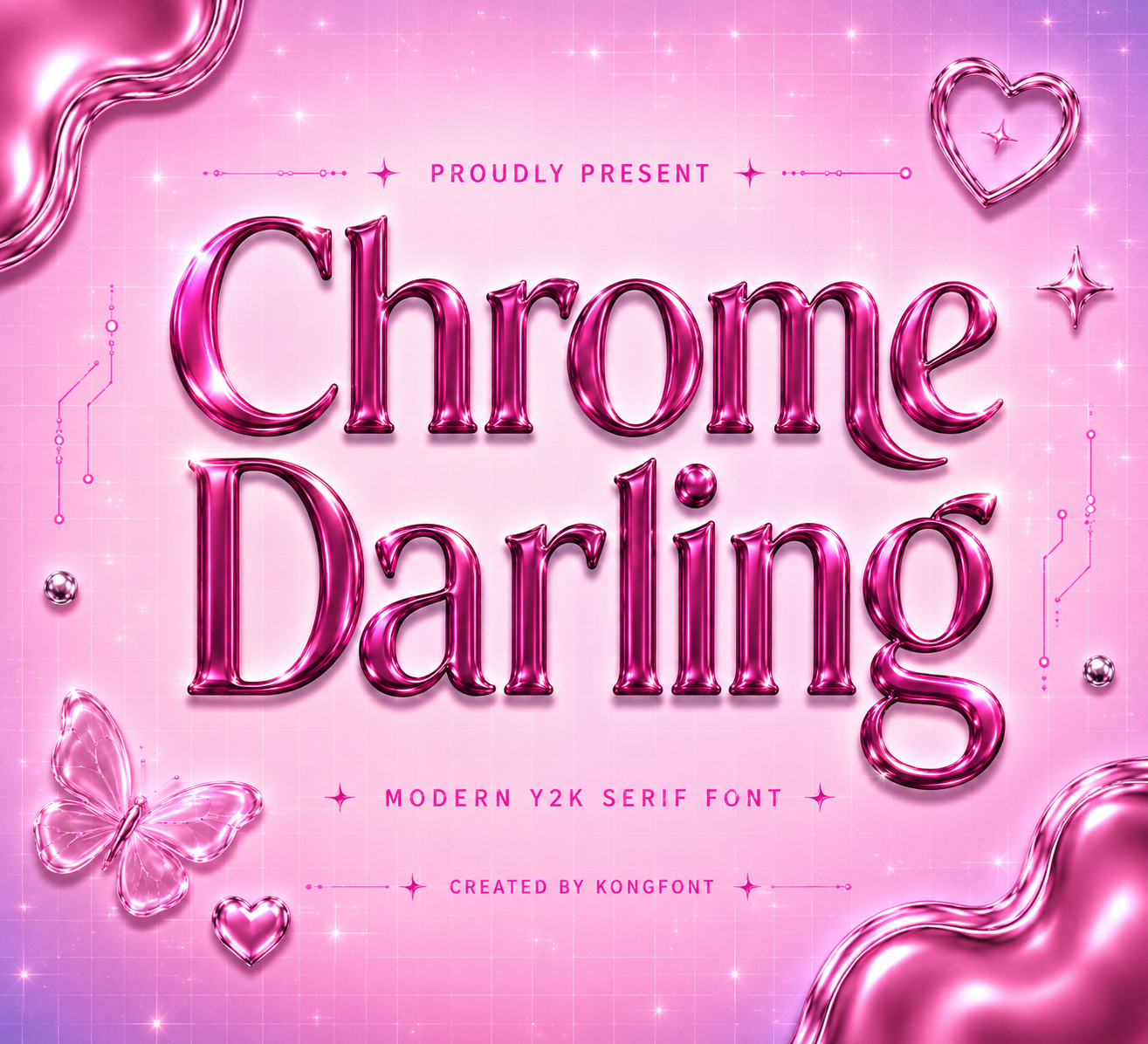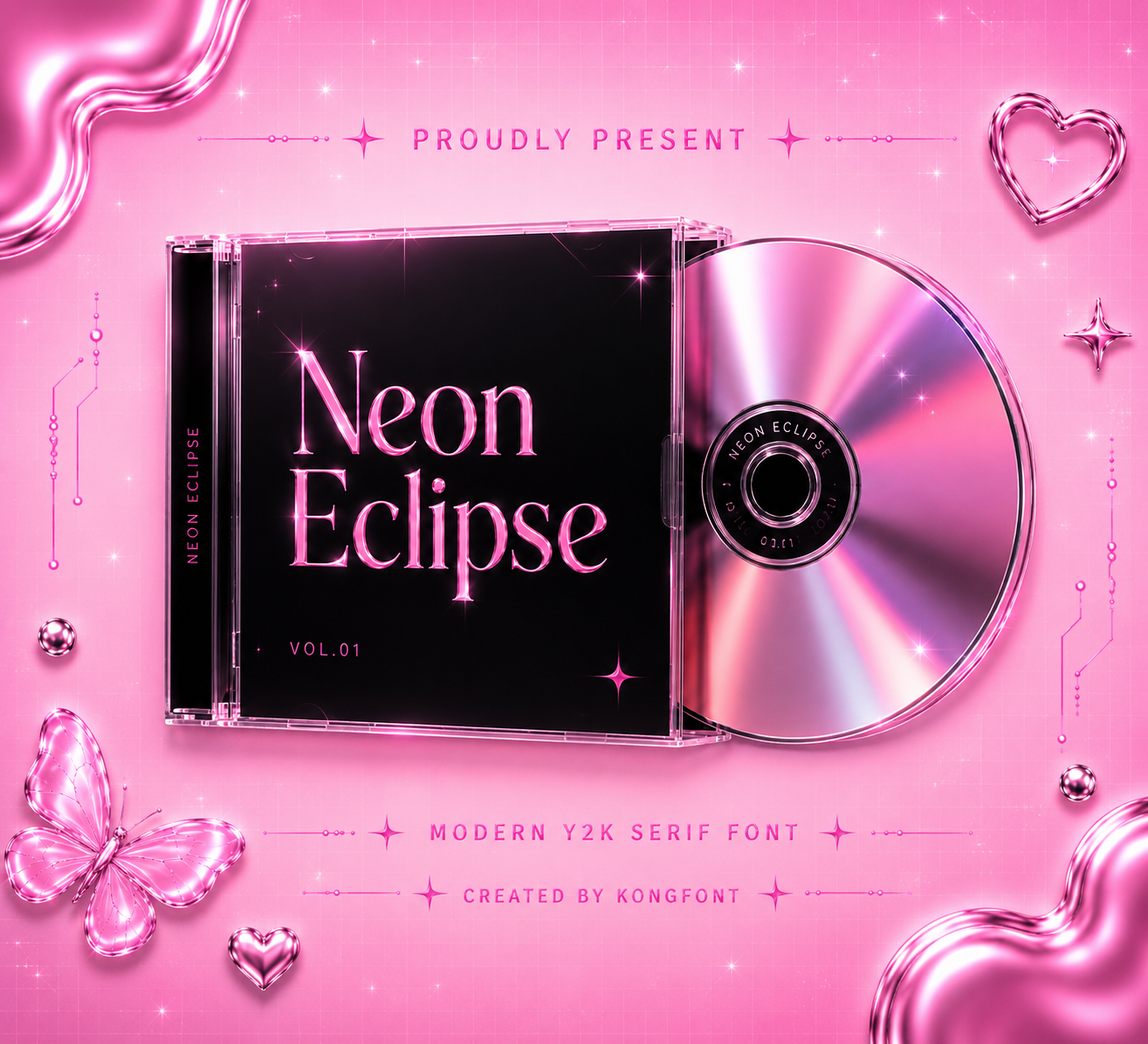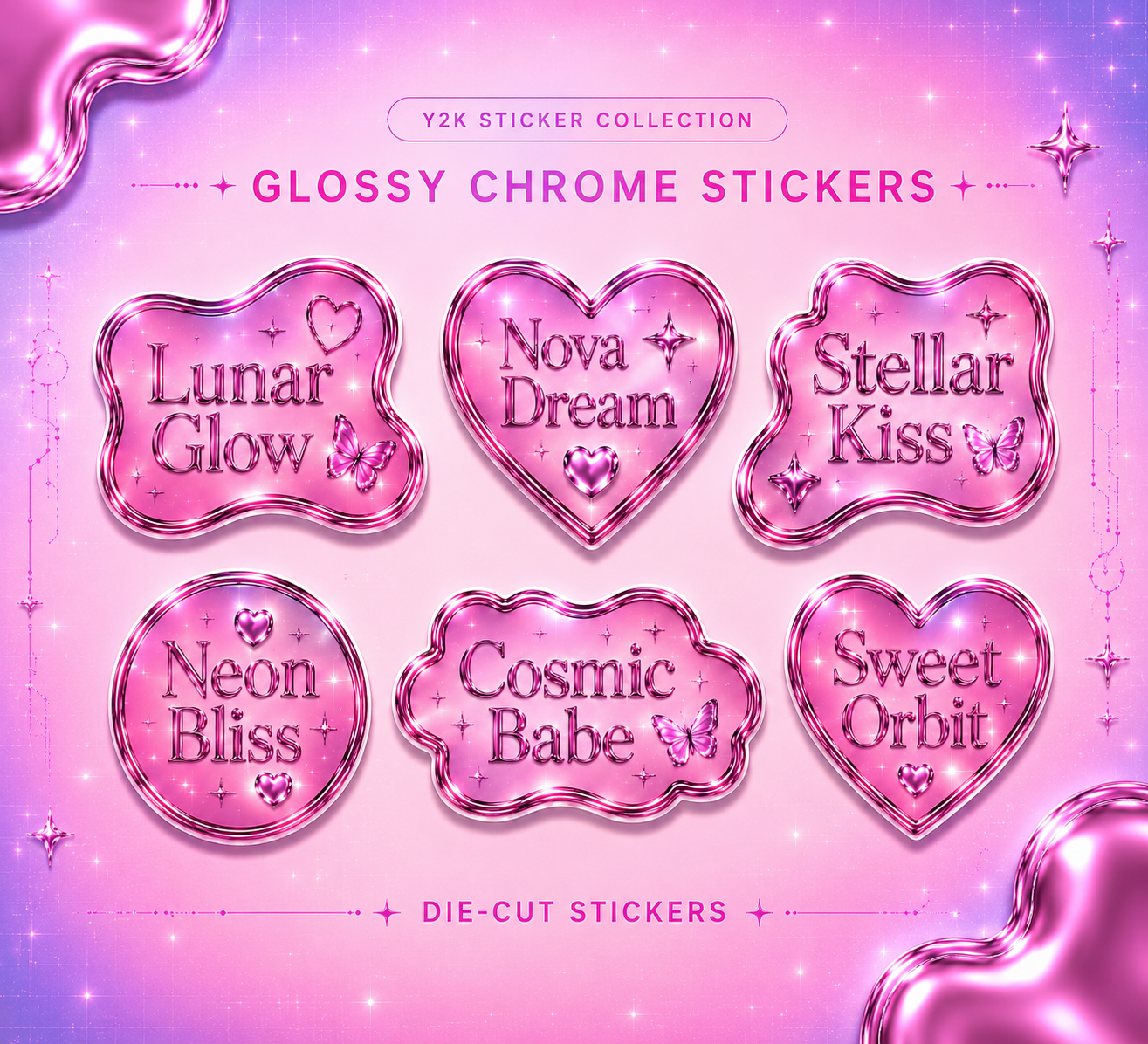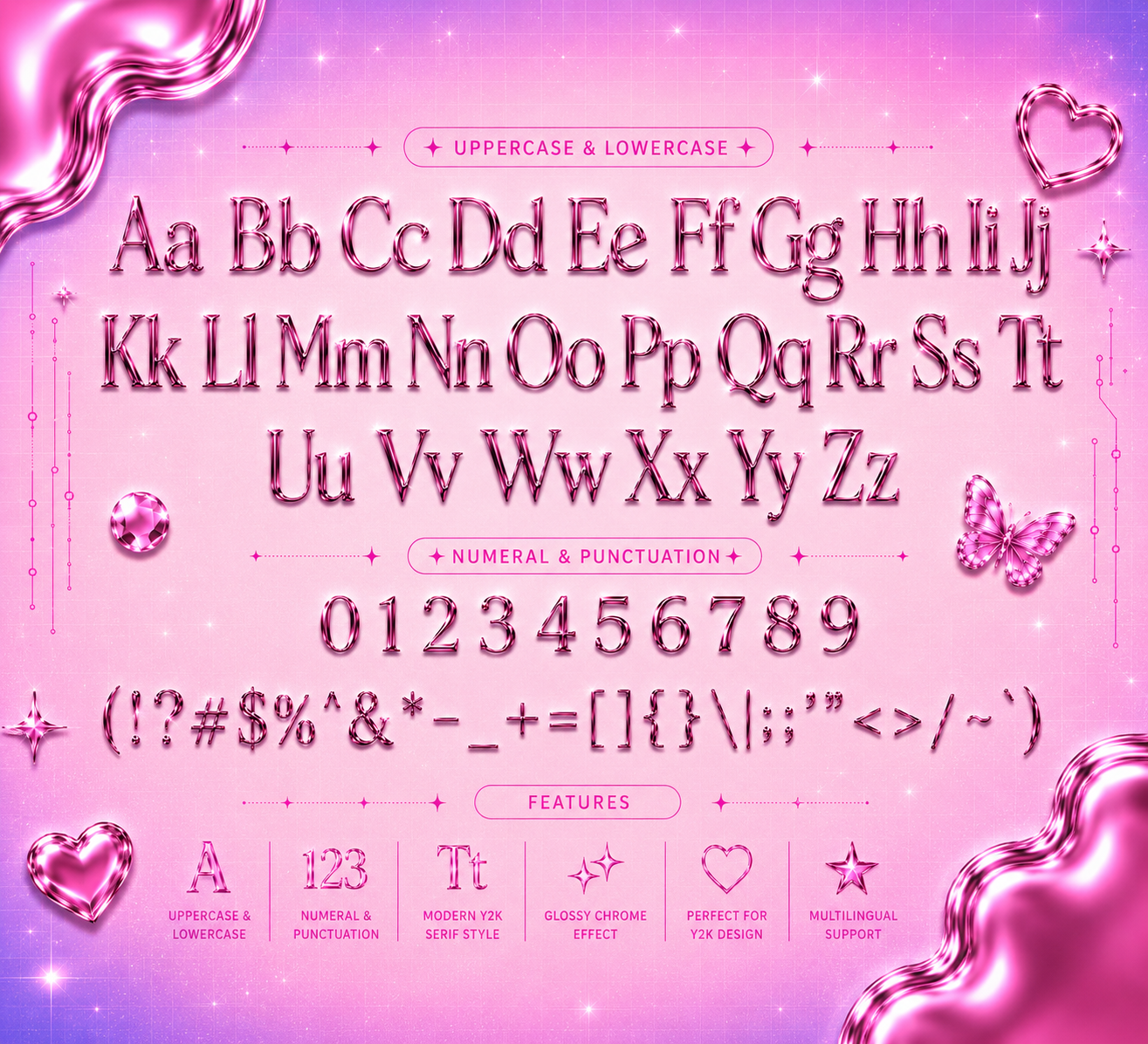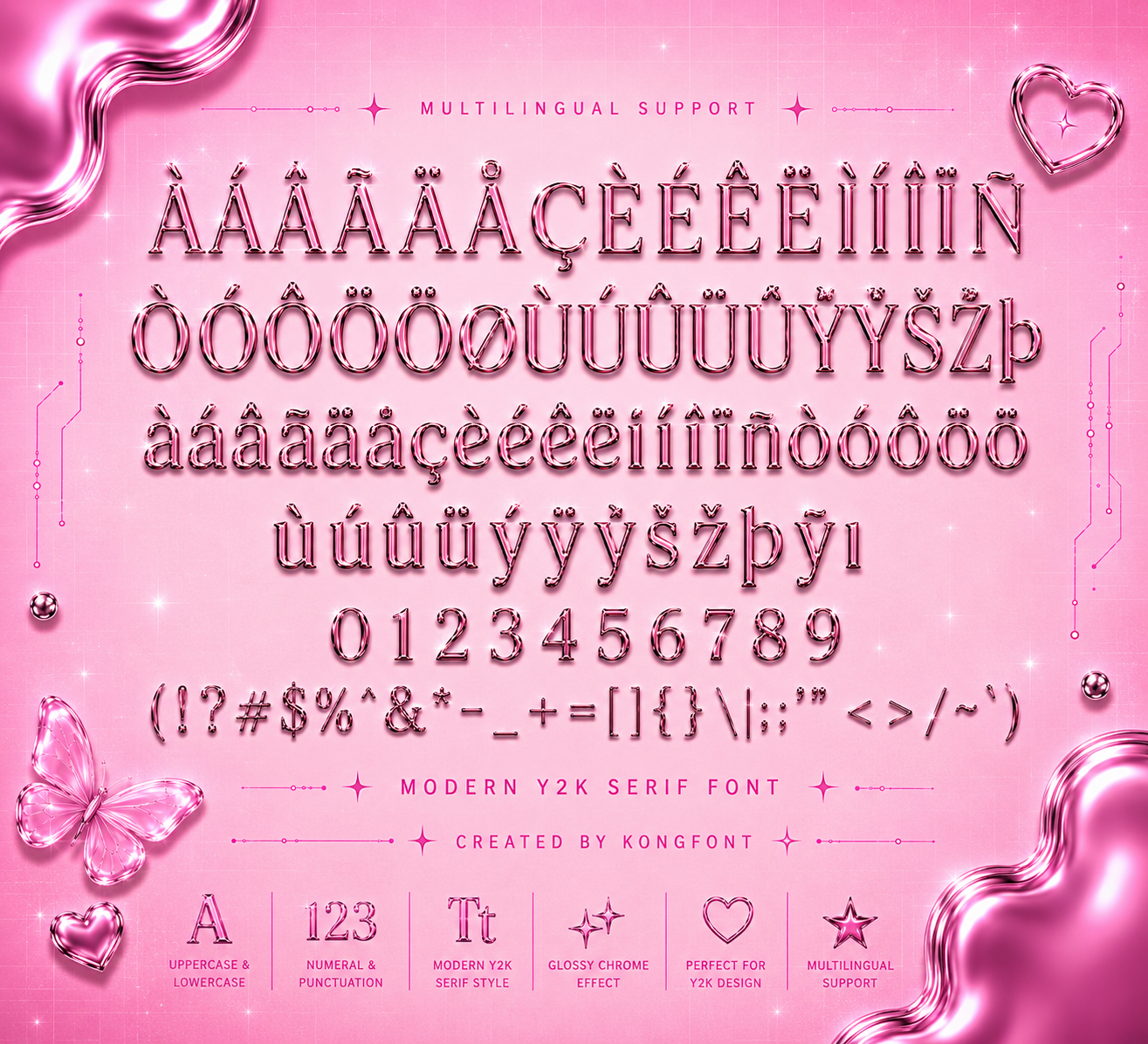
Chrome Darling is a modern Y2K serif font with smooth curves, rounded details, and a futuristic retro-tech feel. Inspired by late 90s and early 2000s digital culture, it brings a stylish mix of nostalgia, fashion, and cyber aesthetics.
• Y2K branding
• Fashion graphics
• Music covers
• Social media designs
• Gaming visuals
• Tech branding
• Digital artwork
• Logos
• Merchandise